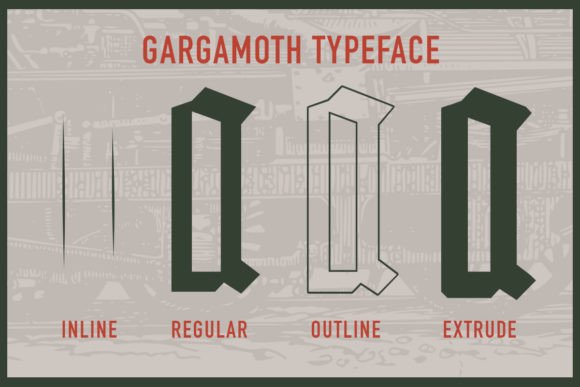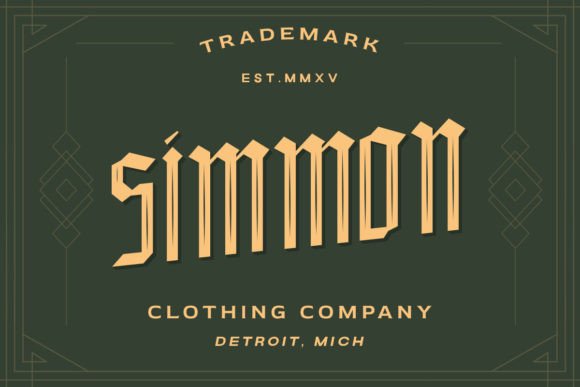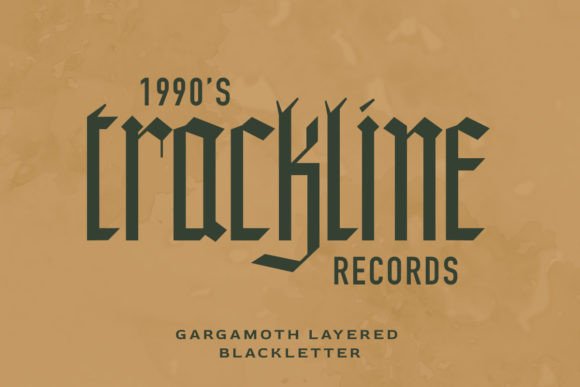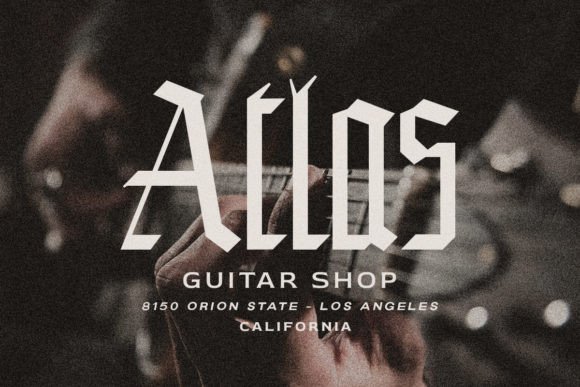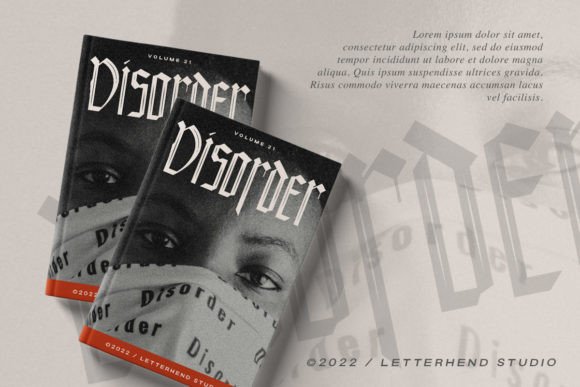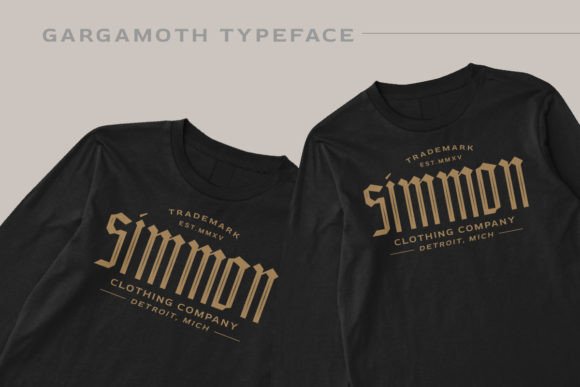
Gargamoth Font: Unleash Your Creativity with this Versatile Blackletter Font
Are you tired of using the same old fonts for your designs? Look no further than Gargamoth, a cool and unique blackletter font that’s sure to capture your heart. With its incredibly versatile style, Gargamoth is perfect for designers and crafters looking to add a touch of elegance and sophistication to their work.
The Story Behind Gargamoth
Gargamoth is a blackletter font that’s inspired by the traditional calligraphy of the Middle Ages. Its name is derived from the French word “gargamelle,” meaning a type of medieval font. However, Gargamoth is not just a replica of old-fashioned calligraphy; it’s a modern interpretation that combines classic elements with a fresh and contemporary twist.
What Makes Gargamoth So Special?
So, what sets Gargamoth apart from other fonts? Here are just a few reasons why this font is a cut above the rest:
- Unique and distinctive style: Gargamoth has a one-of-a-kind look that’s sure to grab attention. Its bold, cursive lines and intricate details make it perfect for creating eye-catching designs.
- Versatility: Gargamoth is an incredibly versatile font that can be used for a wide range of projects, from wedding invitations and posters to logos and branding materials.
- Elegant and sophisticated: Gargamoth exudes elegance and sophistication, making it perfect for designs that require a touch of luxury and refinement.
How to Use Gargamoth in Your Designs
Now that you’re falling in love with Gargamoth, let’s talk about how to use it in your designs. Here are a few ideas to get you started:
- Wedding invitations and stationery: Gargamoth is perfect for creating beautiful, bespoke wedding invitations and stationery that will make your clients swoon.
- Posters and flyers: Use Gargamoth to create eye-catching posters and flyers that will grab attention and leave a lasting impression.
- Logos and branding: Gargamoth can be used to create stunning logos and branding materials that will help your clients stand out from the crowd.
- Packaging and labels: Add a touch of elegance to your packaging and labels with Gargamoth, perfect for luxury brands and products.
Tips and Tricks for Working with Gargamoth
Here are a few tips and tricks to help you get the most out of Gargamoth:
- Experiment with different sizes and styles: Gargamoth looks great in a variety of sizes and styles, so don’t be afraid to experiment and find the perfect combination for your design.
- Pair it with other fonts: Gargamoth can be paired with other fonts to create a unique and interesting contrast. Try pairing it with a clean sans-serif font for a striking effect.
- Use it sparingly: Gargamoth is a bold font, so use it sparingly to avoid overwhelming your design. Use it for headings and titles, and a simpler font for body text.
In conclusion, Gargamoth is a cool and unique blackletter font that’s sure to capture your heart. With its incredibly versatile style and elegant, sophisticated look, Gargamoth is perfect for designers and crafters looking to add a touch of luxury and refinement to their work. Whether you’re creating wedding invitations, posters, logos, or packaging, Gargamoth is the perfect choice. So why not give it a try and see what spectacular designs you can create?